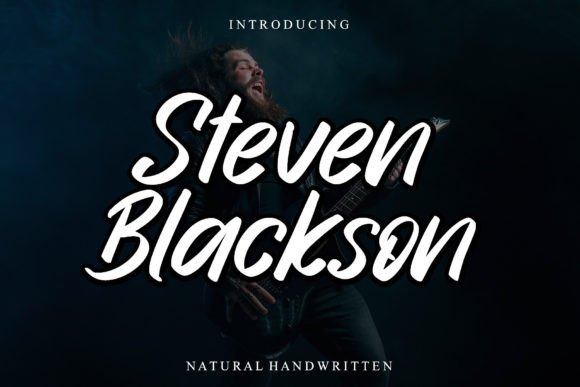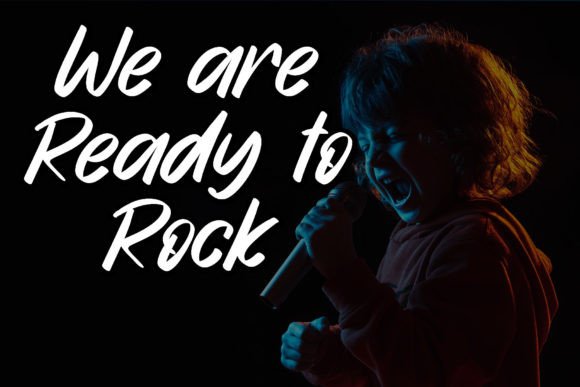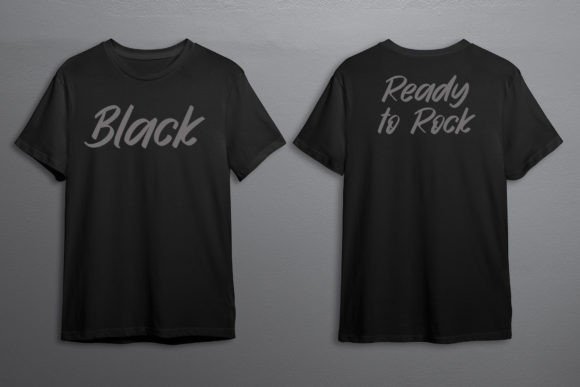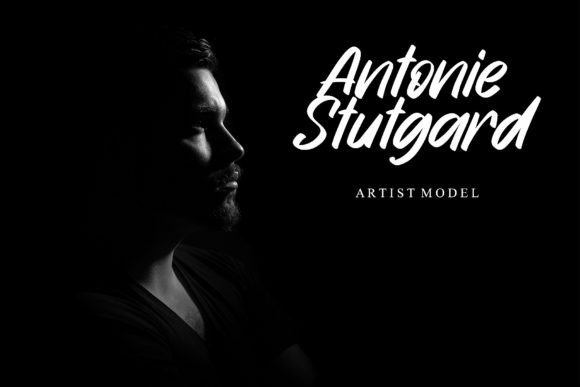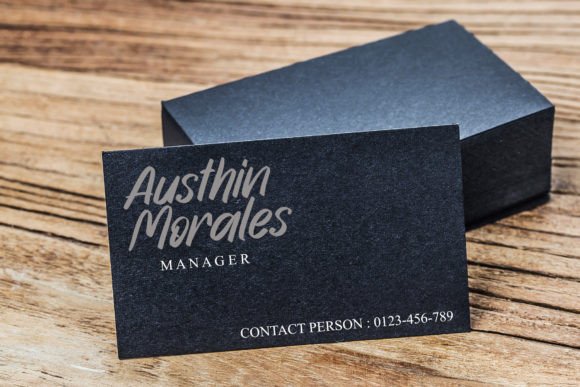
About Steven Blackson
Steven Blackson is a neat and natural handwritten font. It looks stunning on wedding invitations, thank you cards, quotes, greeting cards, logos, business cards, and every other design which needs a handwritten touch.